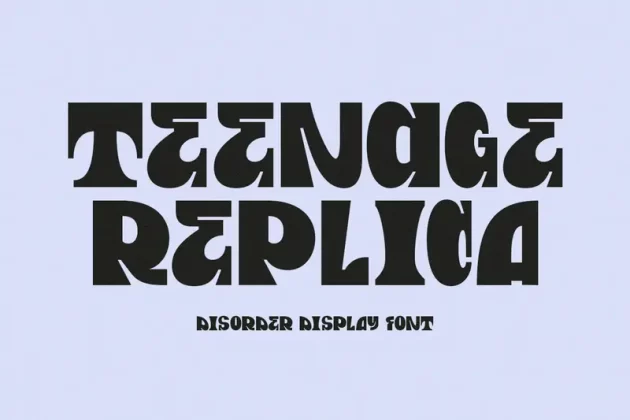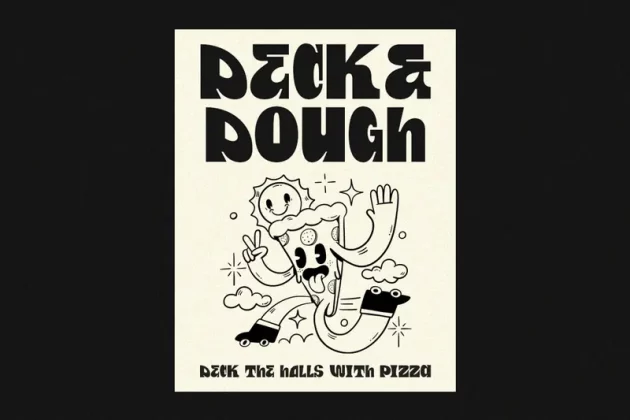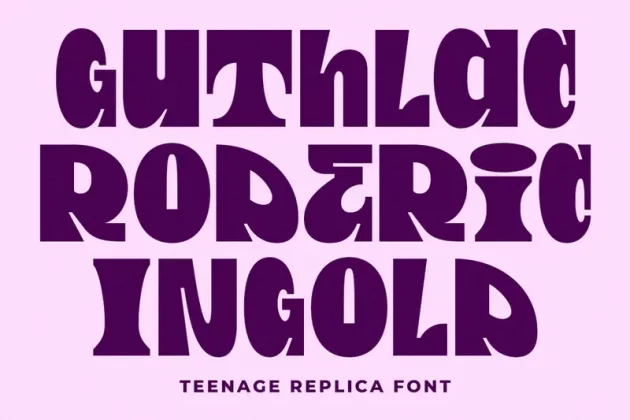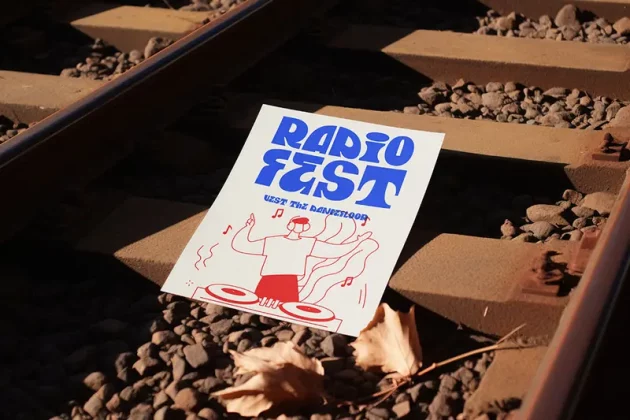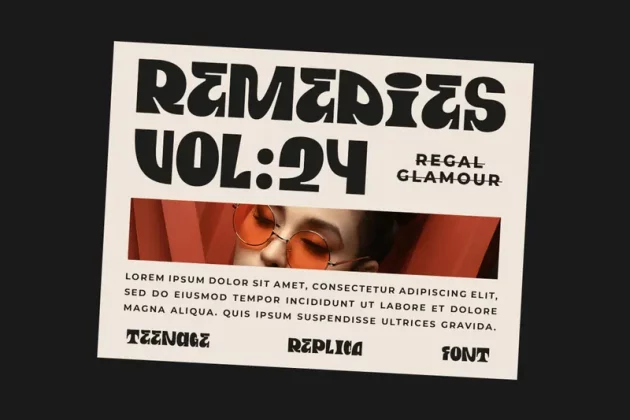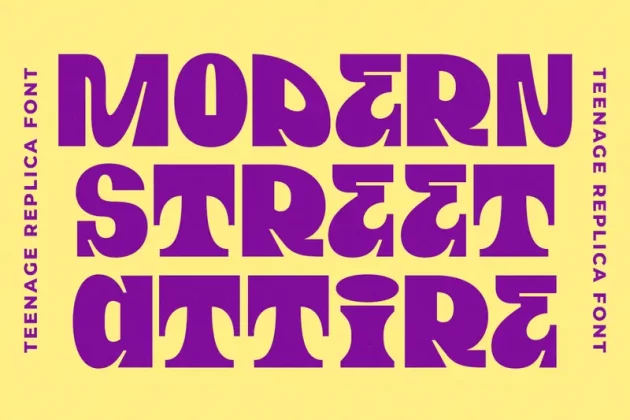
About Teenage Replica Font
Teenage Replica is a disorder display font that captures the essence of teenage rebellion and chaos. With its edgy and irregular design, this font conveys a sense of adolescent angst and nonconformity.
Ideal for projects that require a bold and unconventional look, Teenage Replica is a perfect choice for expressing individuality and youthfulness in your designs.